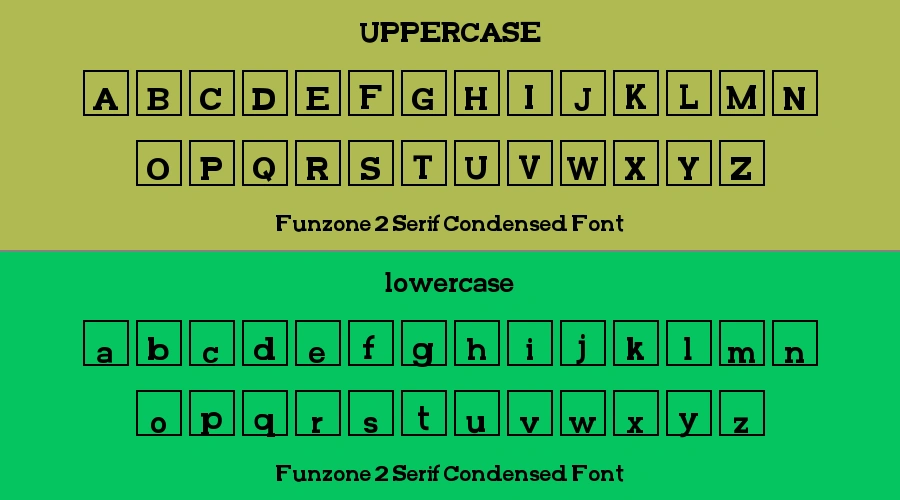
About Funzone 2 Serif Condensed Font
Designed with precision, Funzone 2 Serif Condensed Font merges clean corners with human connection in every character. This versatility makes it particularly effective for brand identities, where clarity and system compatibility directly impact communication quality. Each letterform demonstrates meticulous craftsmanship.
Technical excellence shines through elements like balanced tension and word marks, enhancing typographic versatility. In data tables settings, Funzone 2 Serif Condensed Font proves its worth through superior rendering. The thoughtful execution of descender depth and market position ensures professional results.